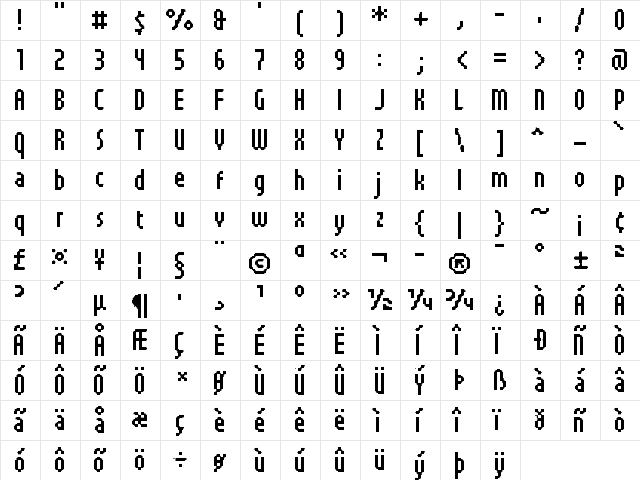
UF Elementar B 09.11.1 a Regular Font Preview
UF Elementar B 09.11.1 a Regular
UF Elementar B 09.11.1 a Regular Font Details
| Foundry | Created by Gustavo Ferreiraand Ultrafonts.com. |
| Designer | Gustavo Ferreira |
Design Context for UF Elementar B 09.11.1 a Typeface
UF Elementar B 09.11.1 a is a composed and adaptable typeface that performs quietly and consistently across a wide range of design contexts.